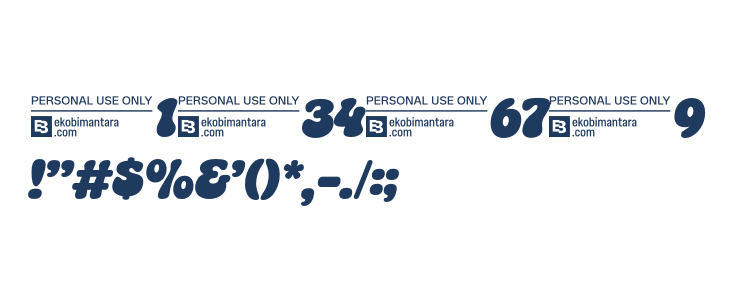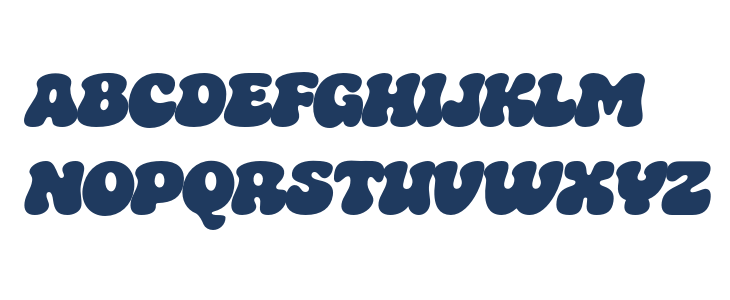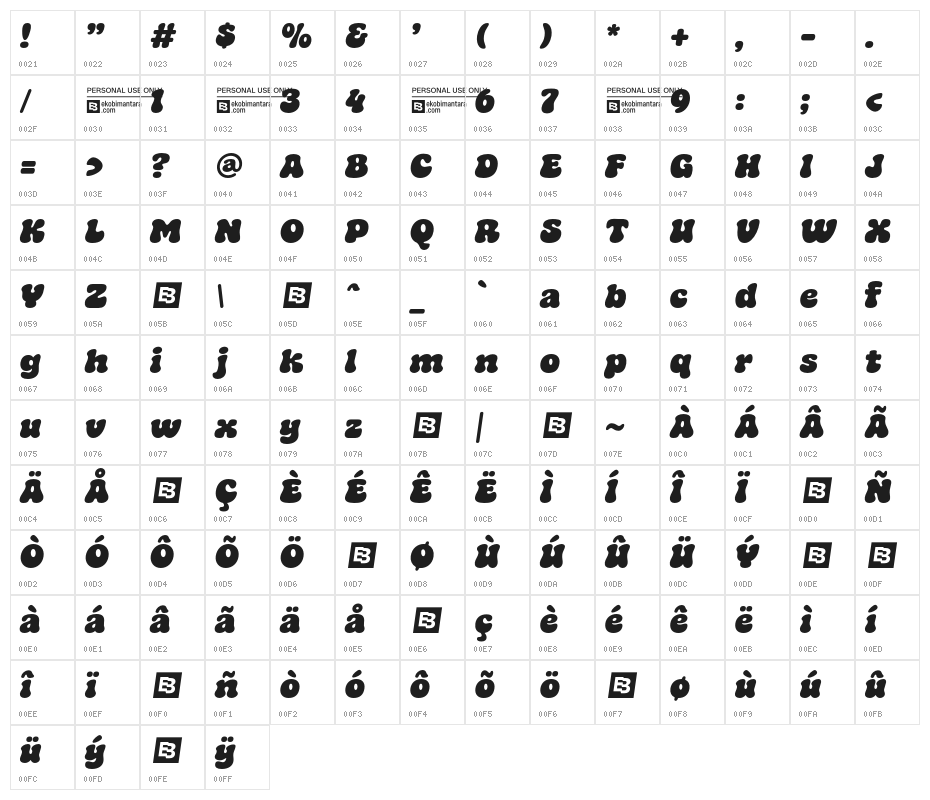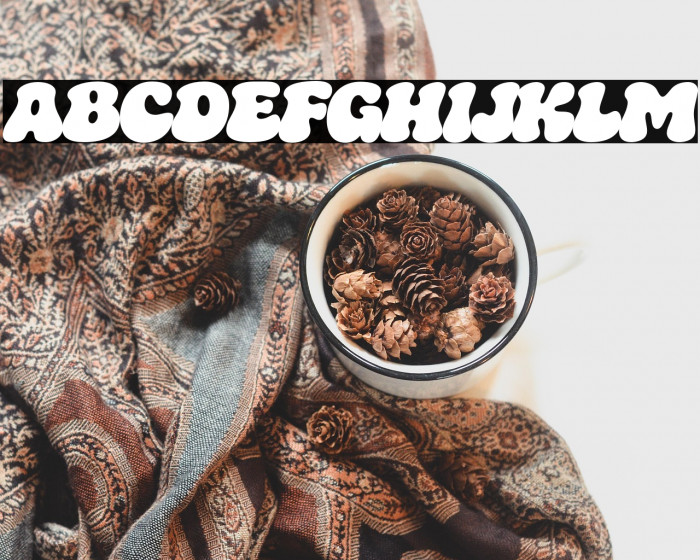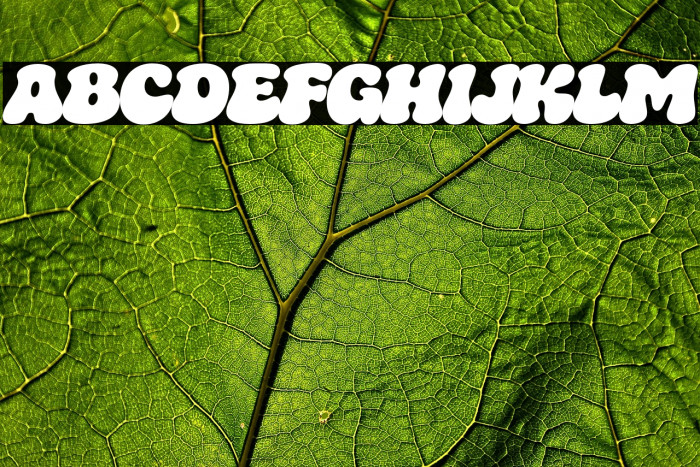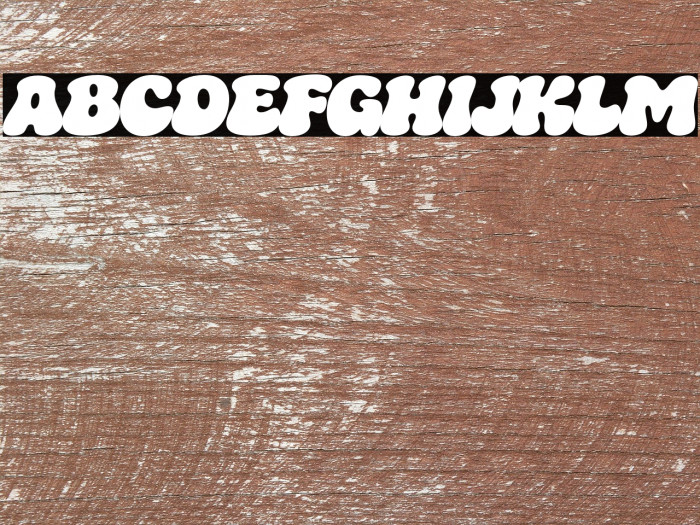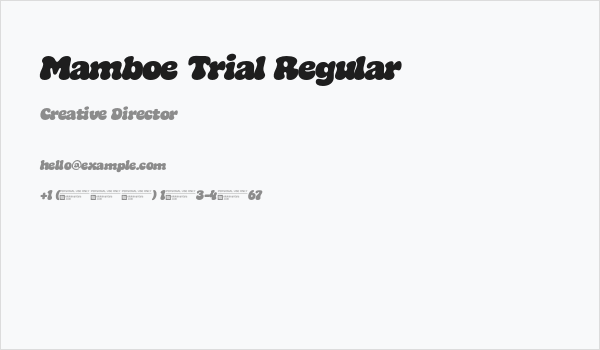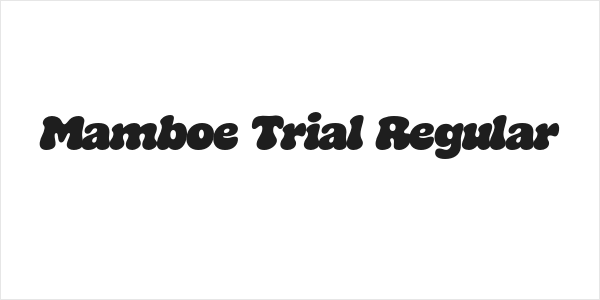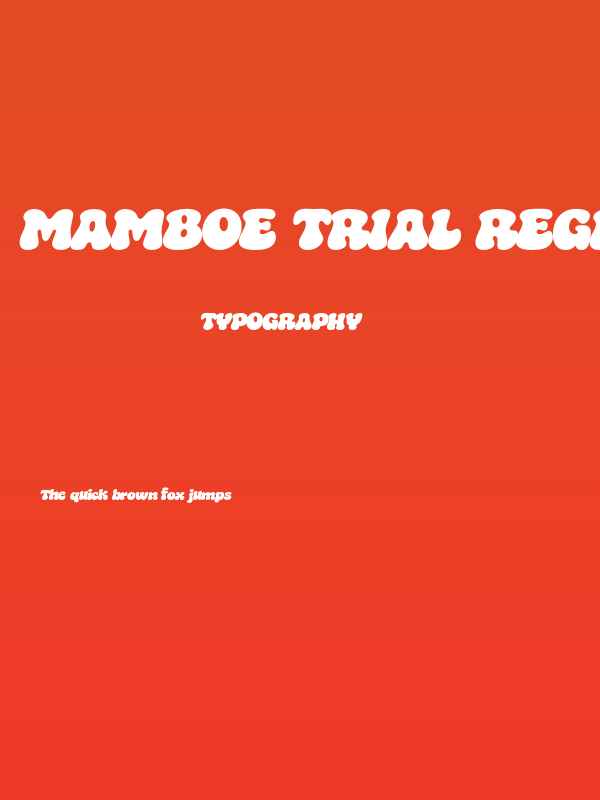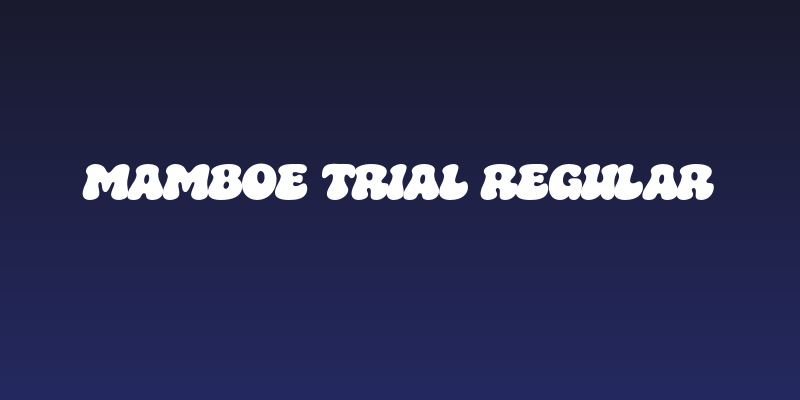
Mamboe Trial Regular Font
Mamboe Trial Regular Description
A playful, bold display typeface with heavy, rounded letterforms and a bubbly, organic appearance. The characters are thick with minimal contrast, and the overall style is highly decorative and eye-catching.
| Overall Style | Playful, Decorative, Retro |
| Proposed Projects | ChildrenΓ’β¬β’s books, posters, party invitations, branding for playful products, event flyers, packaging. |